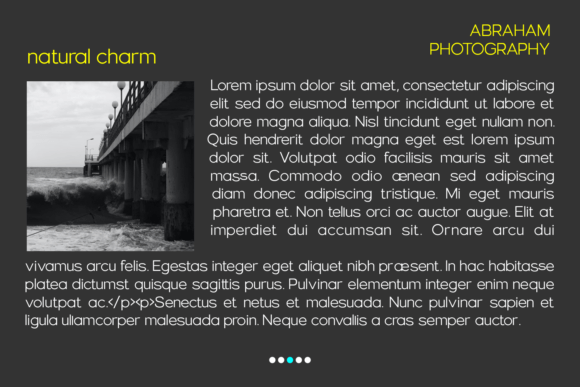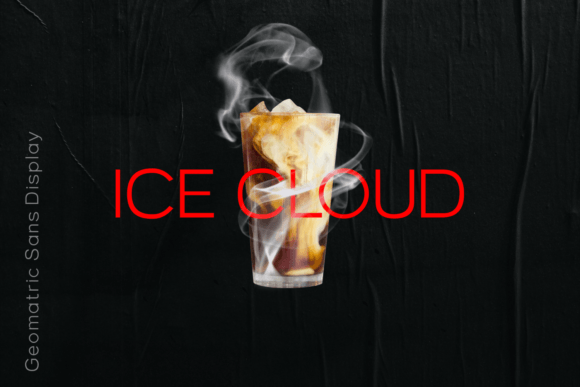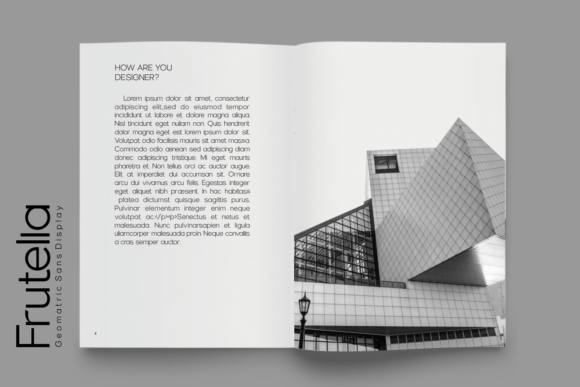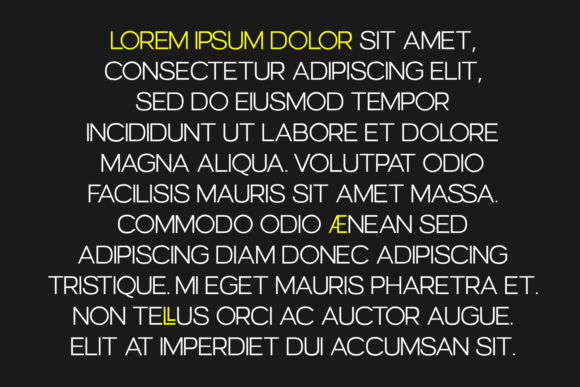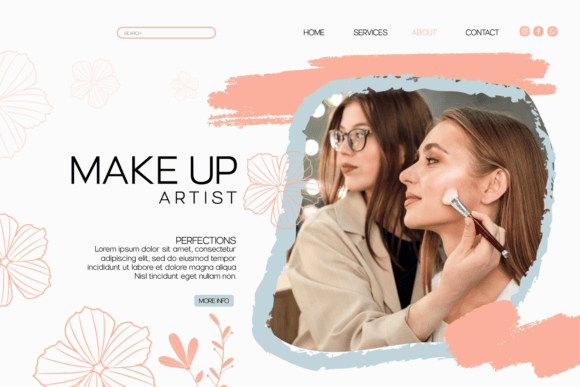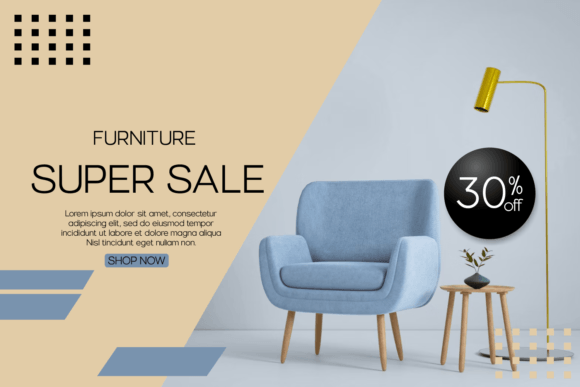
Fruitella Font: A Geometric Sans Serif Marvel for Modern Designers
In the realm of typography, a font can make or break a design. For designers and crafters seeking a modern, versatile, and impactful typeface, Fruitella Font stands out as an exceptional choice. This geometric sans serif font is meticulously designed with powerful OpenType features, making it perfect for a wide range of applications, from graphic design and display use to web, signage, corporate, and editorial design.
What Makes Fruitella Font Unique?
Fruitella Font boasts a geometric sans serif look that exudes modernity and sophistication. Its design is centered around powerful OpenType features, which allow for a high degree of customization and flexibility. One of the standout features of Fruitella is its use of ligature standards that differ from the norm. Ligatures, which are special characters that combine two or more letters, are a key element in typography, enhancing the visual flow and readability of text. Fruitella’s unique approach to ligatures sets it apart, offering designers a fresh and distinctive typographic voice.
Key Features of Fruitella Font
- Geometric Sans Serif Design: Fruitella’s clean and geometric design makes it highly legible and versatile, suitable for a variety of design applications.
- Powerful OpenType Features: The font is equipped with advanced OpenType features, allowing designers to customize and manipulate the text to suit their creative vision.
- Unique Ligature Standards: Fruitella introduces a new standard in ligature design, providing a unique typographic experience that can elevate any design project.
- Versatility: Whether it’s for graphic design, display use, web design, signage, corporate branding, or editorial design, Fruitella Font proves to be an excellent choice due to its adaptability and aesthetic appeal.
Applications of Fruitella Font
Fruitella Font’s versatility is one of its most compelling attributes. Here are some of the areas where this font truly shines:
- Graphic Design: For branding, packaging, and marketing materials, Fruitella offers a modern and clean look that can help brands stand out.
- Display Use: Its geometric sans serif design makes it perfect for headlines, titles, and any display text where impact and readability are crucial.
- Web Design: Fruitella’s legibility and aesthetic appeal make it an excellent choice for digital platforms, enhancing user experience and interface design.
- Signage: For physical signage, Fruitella’s clear and bold design ensures that messages are conveyed effectively and with style.
- Corporate and Editorial Design: In corporate communications and editorial projects, Fruitella brings a professional and contemporary feel, making it suitable for magazines, newspapers, and corporate reports.
Why Choose Fruitella Font?
In a world where design trends are constantly evolving, having a font that can keep pace is invaluable. Fruitella Font offers:
- Modern Aesthetic: Its geometric sans serif design is perfect for contemporary design projects.
- High Versatility: Suitable for a wide range of applications, from digital to print.
- Customization: With its OpenType features and unique ligatures, Fruitella allows for a high degree of customization.
- Legibility: Ensures clear communication of messages across various mediums.
Fruitella Font is a geometric sans serif typeface that brings a fresh perspective to modern design. With its powerful OpenType features, unique ligature standards, and versatile design, it is an excellent addition to any designer’s toolkit. Whether you’re working on a graphic design project, creating display text, designing for the web, or crafting signage and editorial content, Fruitella Font offers the perfect blend of style, readability, and flexibility. Embrace the modernity and sophistication that Fruitella brings to the table and elevate your design projects to new heights.